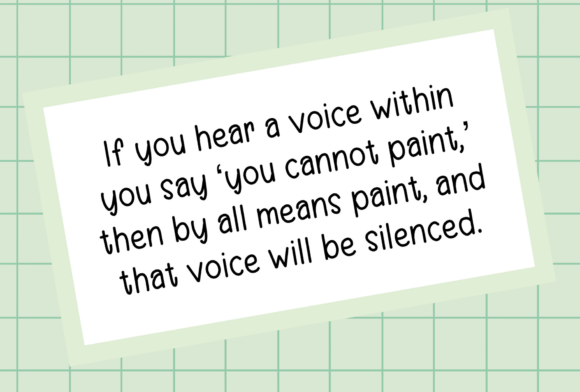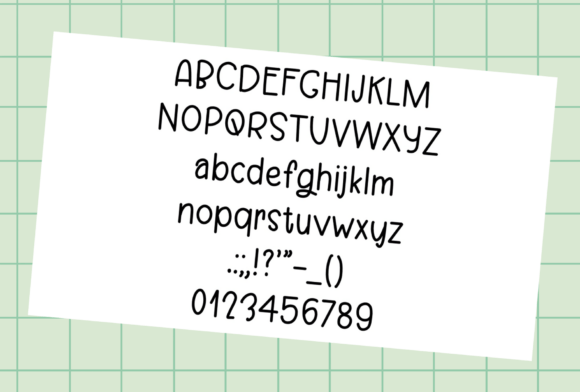
Introduction to My Note Font
Have you ever sat down at your desk, pen in hand, ready to dive into a creative project, only to find yourself stuck in a sea of generic fonts? The moment when you need to add a personal touch to your work, but struggle to find the perfect design resource, is a frustrating one. That’s where My Note Font comes in – a beautiful, handwritten font that’s as easy on the eyes as it is versatile.
Whether you’re a graphic designer, educator, or simply someone who loves to jot down notes, My Note Font is a valuable asset to have in your toolkit. With its high-quality, transparent background, this font is perfect for adding a touch of personality to your work without overwhelming the senses. And the best part? It’s free to download, making it an accessible resource for anyone looking to elevate their creative projects.
Key Features of My Note Font
- High-quality design resource with a transparent background, ideal for creative projects.
- My Note Font offers a unique, handwritten style that adds a personal touch to any design.
- Each character is carefully crafted to ensure a consistent and professional look, perfect for branding and marketing materials.
- Designed at 300 DPI, ensuring crisp and clear text, even when scaled up or down.
- My Note Font is ideal for use in digital and print projects, including logos, business cards, and brochures.
Honest Review: My Note Font
As a designer, I’m always on the lookout for high-quality design resources to elevate my creative projects. Recently, I stumbled upon the “My Note Font” and was excited to give it a try.
Here are my thoughts:
- ✨ High-quality design: The font is crisp, clean, and visually appealing, making it perfect for a variety of design projects.
- ✨ Versatility: The font comes in a range of weights, making it easy to use for both body text and headings.
- ✨ Transparent background: The font’s transparent background makes it easy to use on both light and dark backgrounds.
- ⚠️ Limited character set: The font only includes a limited character set, which may not be suitable for all design projects.
Overall, I’m impressed with the “My Note Font” and would definitely recommend it for personal projects. However, designers working on commercial projects may need to look elsewhere for a more comprehensive font solution.
My Note Font is a free download design resource that offers high-quality typography for your creative project. It features a transparent background, making it easy to use in various design applications.
To use My Note Font in PowerPoint or Word, download and install the font file on your computer. You can then select the font from your font menu and apply it to your design. My Note Font is perfect for creating professional-looking titles and headings in your PowerPoint or Word documents.
To get the most out of My Note Font, use it in conjunction with other high-quality design resources, such as graphics and illustrations. You can also experiment with different font sizes, colors, and styles to create a unique look for your creative project.
My Note Font is perfect for a variety of creative projects, including blog posts, social media graphics, and presentations. It’s also great for creating custom typography for your business cards, brochures, and other marketing materials.
Yes, My Note Font supports transparent backgrounds, making it perfect for creative projects that require a subtle and elegant look. Simply use the font with a transparent background in your design software, and you’re good to go.
Q: What is the resolution of My Note Font?
My Note Font is available in high resolution (up to 1024 x 1024 pixels) and is optimized for use at any size, making it perfect for large-scale designs or print materials. The font is also fully scalable, so you can use it for any project, from small web designs to large-scale advertising campaigns.